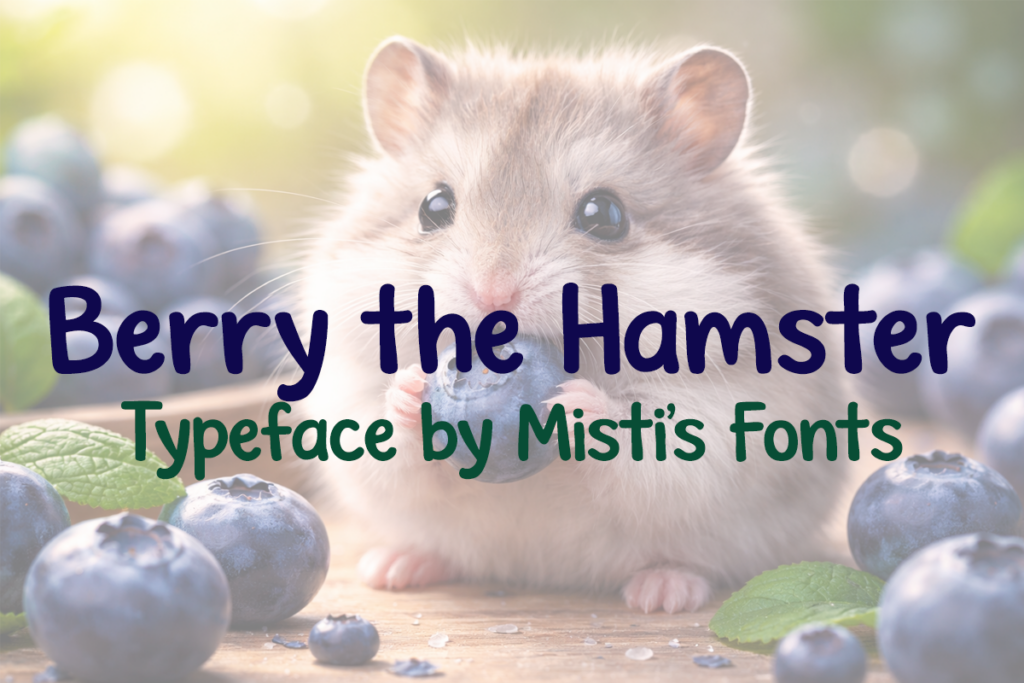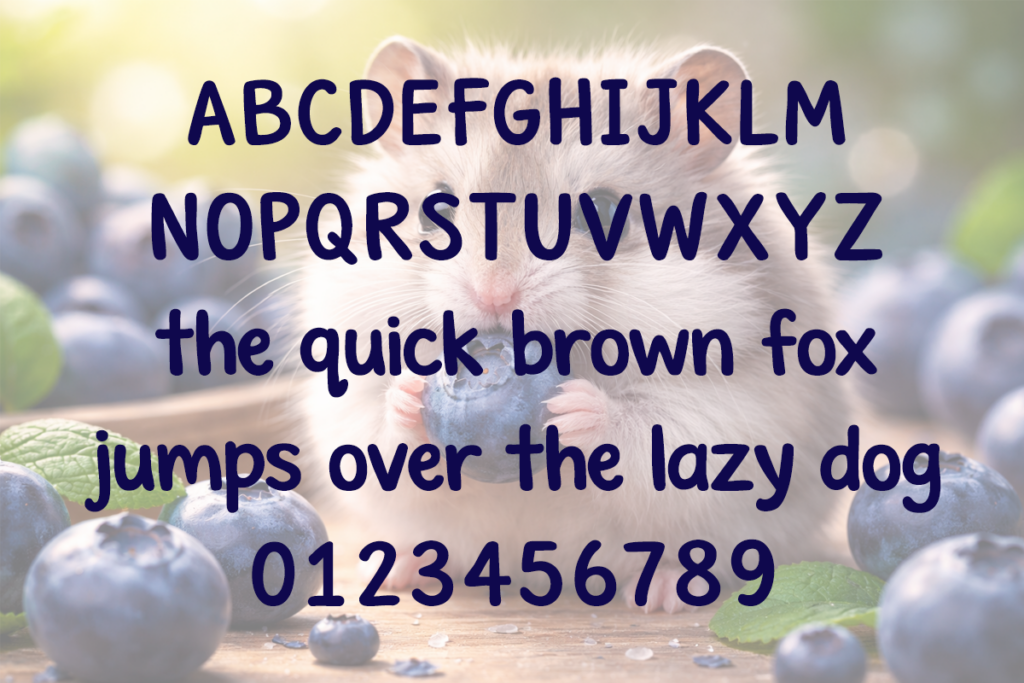
Experience the delightful charm of the Berry the Hamster display font, a handwritten creation that embodies simplicity and legibility. Evoking an air of cuteness, this font weaves a sense of warmth and familiarity into your design projects. Its handwritten nature provides a touch of personal charm, making it perfect for projects that seek a friendly, inviting touch. Morph your typography with Berry the hamster, and watch your designs come to life, imbued with a lighthearted spirit.